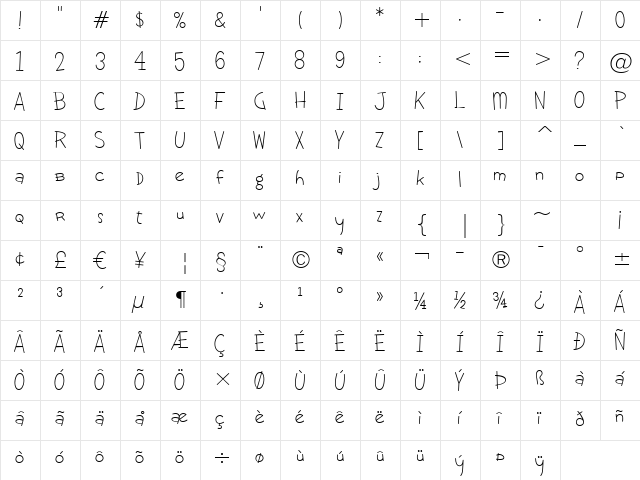
Crazy Girlz Brunette BTN Lt Regular
Design Context for Crazy Girlz Brunette BTN Lt Typeface
Crazy Girlz Brunette BTN Lt takes a measured approach to typography — its balanced proportions and neutral character make it a reliable workhorse for both digital and print work. Its slender proportions lend an understated elegance to any composition.